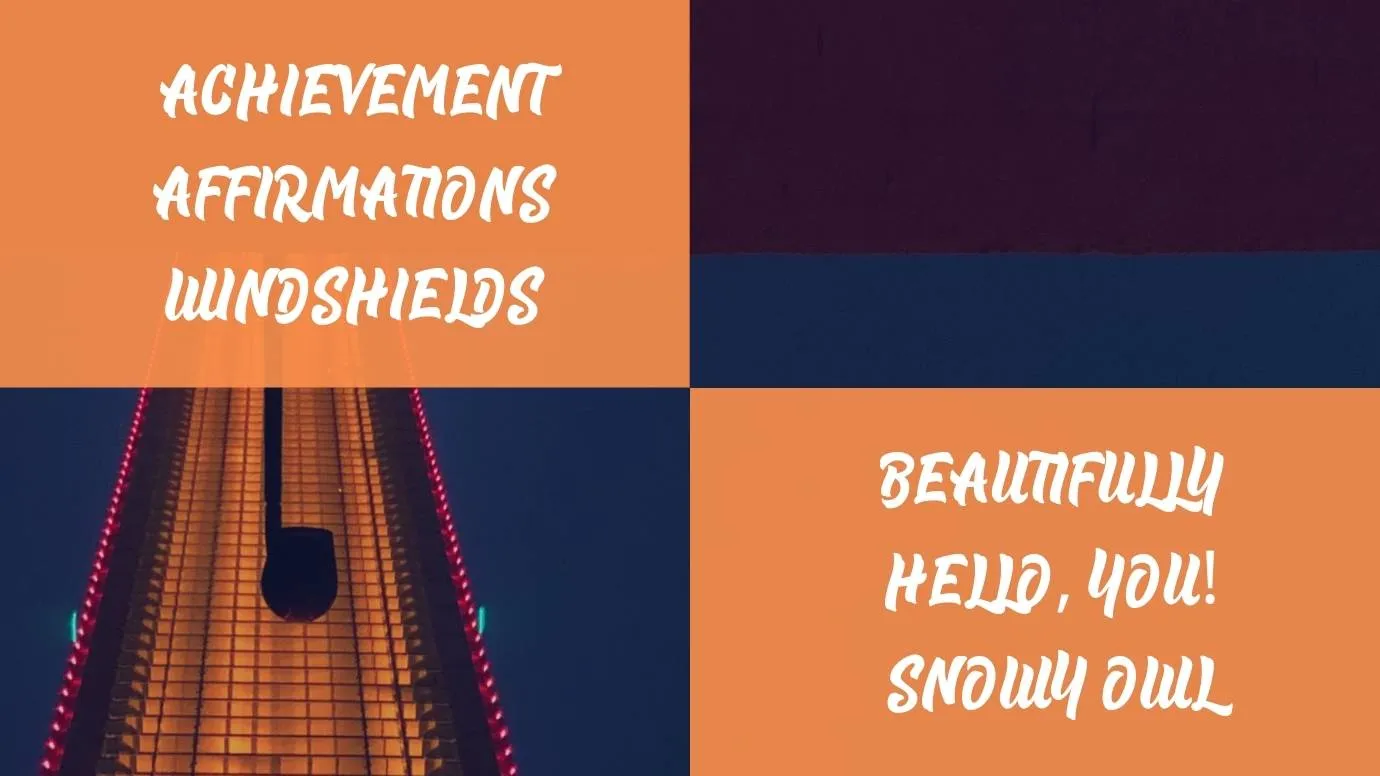
In this post, we are going to introduce you to an advanced and new style of texture that is called Beneth Font. This texture is a group member of the script typeface family, the style of this font is a brush.
This is a multi-style of font that looks like brush, calligraphy, and handwritten at the same time. The most similar and the pairing font to this texture is Flaming Font.
The style of this typeface is more attractive and eye-catching, which attract the reader easily and the main point of this typeface is that it is easy for all type of users. This typeface is released with a regular style, which fulfills all your needs.
This is an amazing texture for any style of design, you can use this for all types of electric and print media. This is an amazing texture for posters and banners, you can use this typeface for T-shirt designs.
This is a perfect typeface for invitation cards, party cards, and wedding cards, you can use this font in many more projects.
Designer of Beneth Font
This stylish and fashionable font is designed by a famous graphic designer, who is known, as IlhamSyah Vutra.
This font family includes a single style, this regular style consists of glyphs, digits, capital letters, small letters, punctuation, a set of characters, and a wide range of language support.
View of Beneth Font
| Name | Beneth Font |
| Style | Brush |
| Designer | IlhamSyah Vutra |
What font is Beneth Font?
This texture is a group member of the script typeface family, the style of this font is a brush. This is a multi-style of font that looks like brush, calligraphy, and handwritten at the same time.
What font goes with Beneth Font?
There are so many fonts to get a match with this font but, the most paired font is to this typeface is Kitten Font.
Who created the Beneth Font?
This stylish and fashionable font is designed by a famous graphic designer, which is known, as IlhamSyah Vutra.